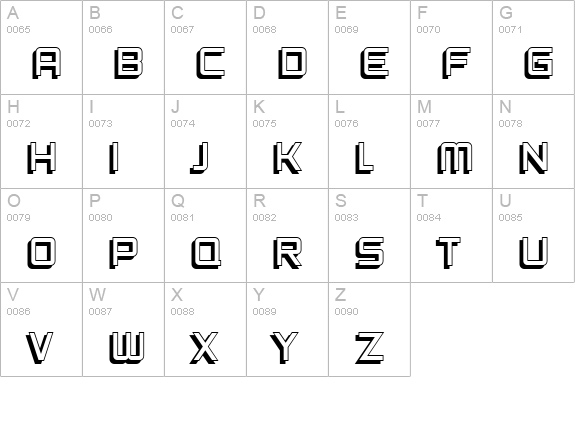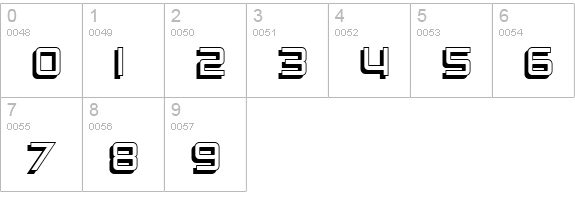
SF Fedora Titles Shadow Font Details
Introducing the SF Fedora Titles Shadow font, a stunning display typeface that exudes an air of elegance and mystery. This font is perfect for adding a touch of sophistication to your designs, whether it be for branding, advertising, or any creative project that requires a touch of class. With its unique and eye-catching shadow effect, SF Fedora Titles Shadow will instantly grab the attention of your audience and leave a lasting impression. Its bold and sharp letterforms are meticulously crafted, ensuring clear legibility even at smaller sizes. One of the most remarkable aspects of SF Fedora Titles Shadow is that it is freely available to download at FontsMarket.com. Yes, you read that right – this incredible font can be yours without any cost. Now, you can elevate your designs to new heights without breaking the bank. The versatility of SF Fedora Titles Shadow is undeniable. It seamlessly blends with a wide range of design styles, from vintage and retro to modern and futuristic. Its timeless appeal makes it suitable for various applications, be it print, digital, or even merchandise. With SF Fedora Titles Shadow, you have full control over your creative vision. Customize the font's size, color, and shadow intensity to suit your specific needs. Its extensive character set includes uppercase letters, numerals, punctuation, and special symbols, ensuring that your message is conveyed with utmost precision. Whether you're a seasoned designer or just starting out, SF Fedora Titles Shadow provides you with a powerful tool to express your creativity. Download this font today from FontsMarket.com and unlock a world of design possibilities – for free. Let SF Fedora Titles Shadow be the secret weapon in your design arsenal, captivating your audience with its striking presence and leaving them in awe.